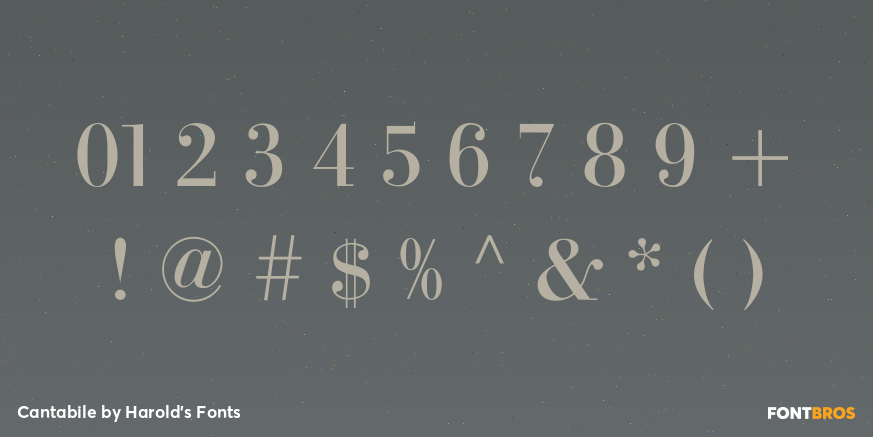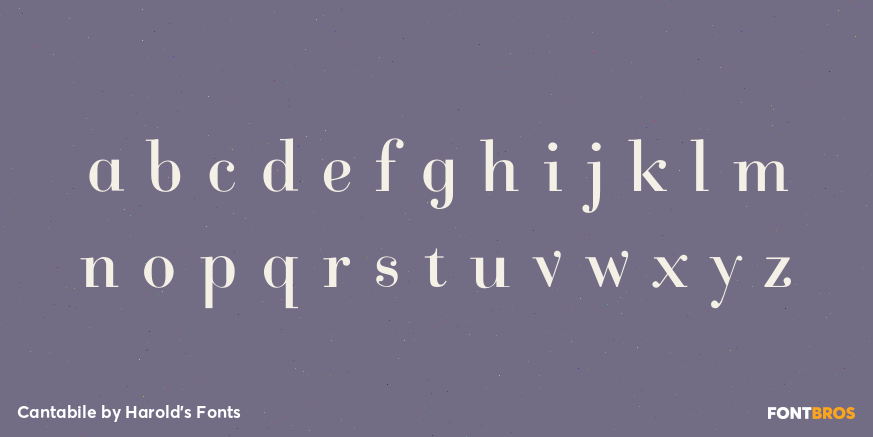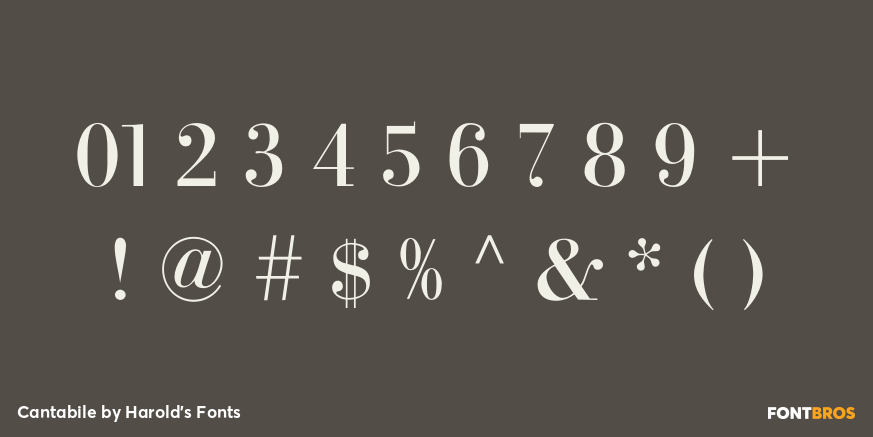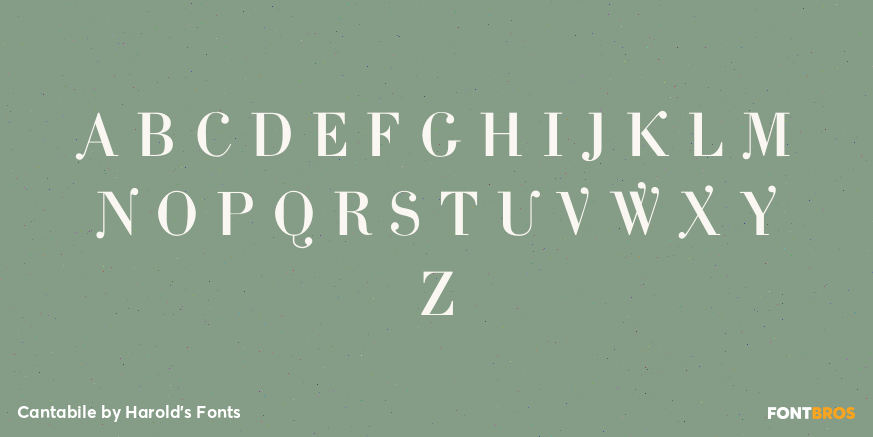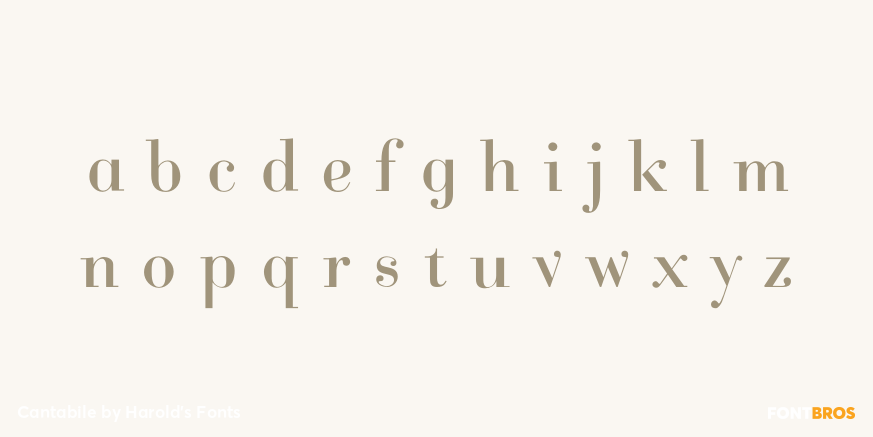
Cantabile
Font Family by Harold's Fonts
CANTABILE is an elegant font with some postmodern touches such as deleted serifs, exaggerated swashes, and ball terminals. Its musical appearance led to its name that means "singingly." Available in 3 weights
Version 4.0 uses Opentype features to make the alternate characters and ligatures easier to use, as well as an expanded character set and improved spacing and kerning.